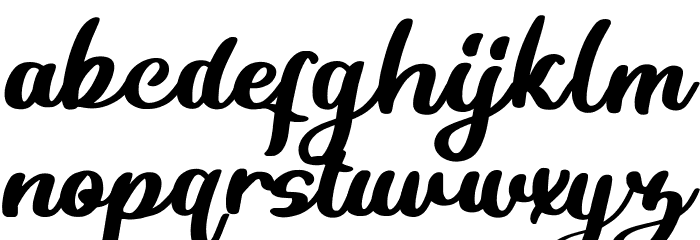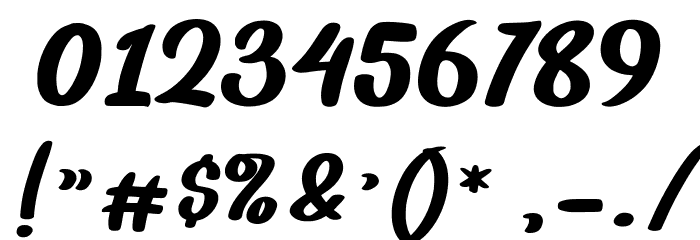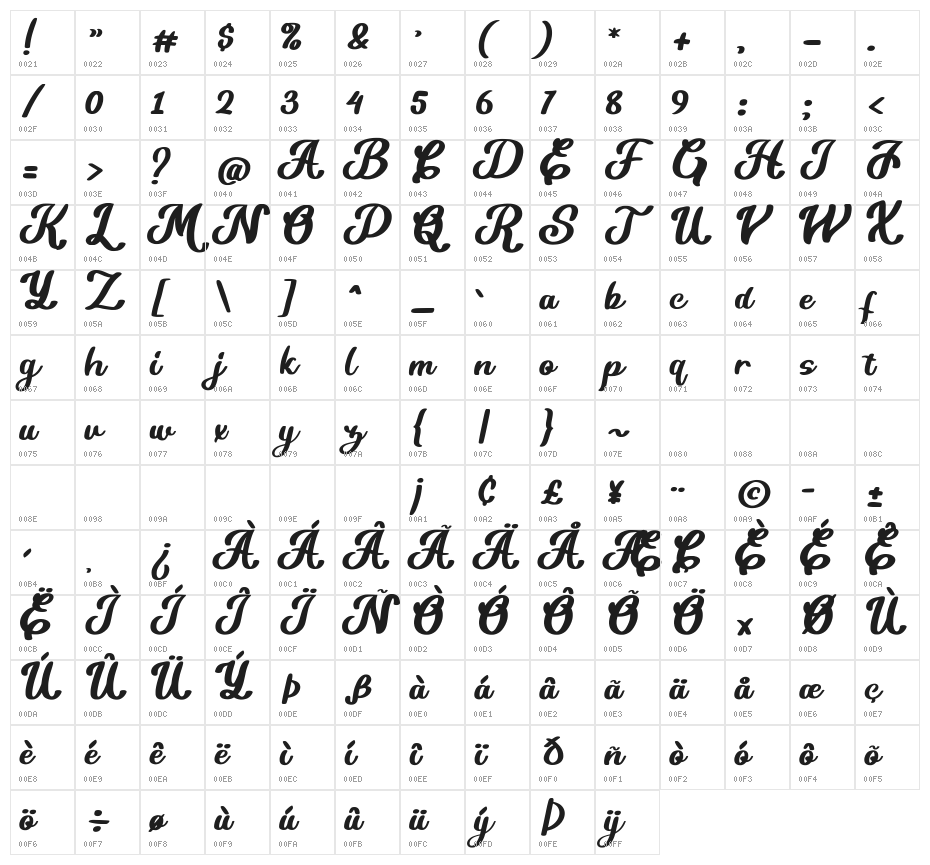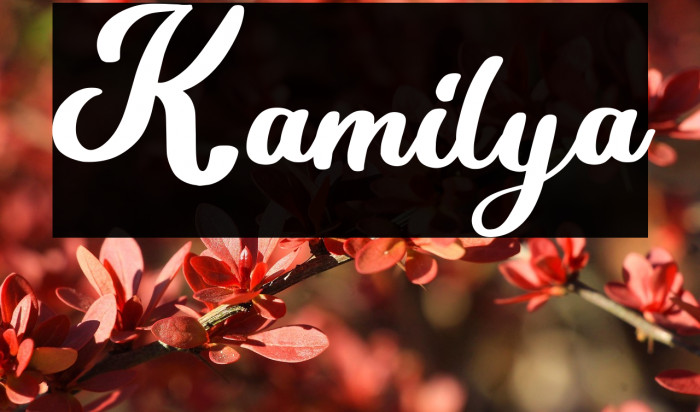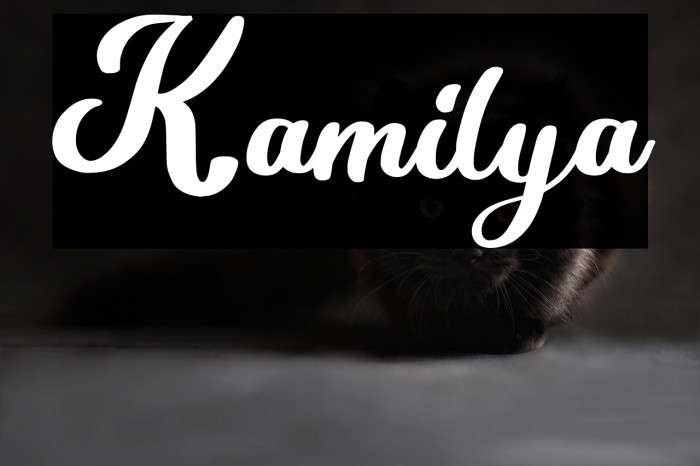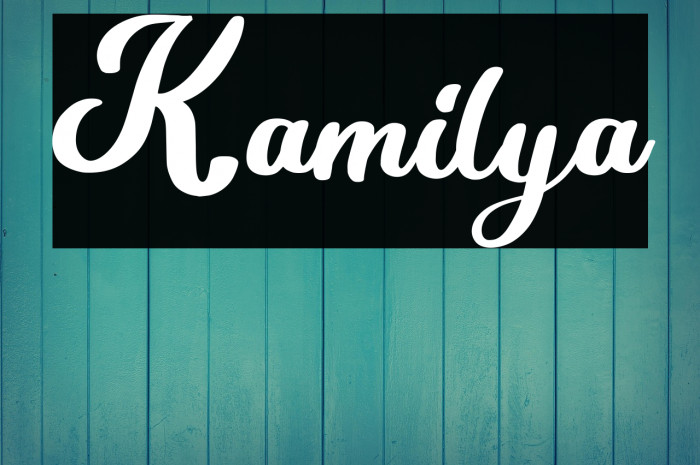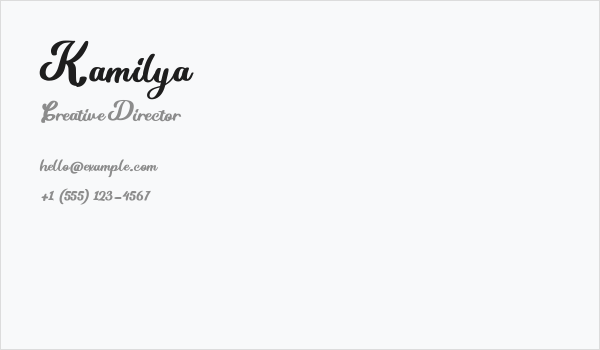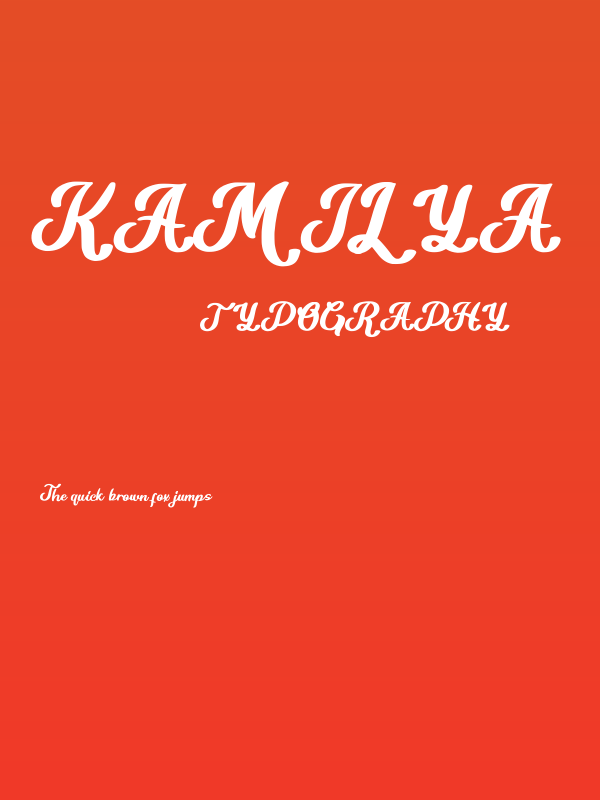
Kamilya Font
This font features a bold and flowing script style, characterized by its elegant curves and smooth connections between letters. The uppercase letters exhibit a classic calligraphic flair, while the lowercase letters maintain a consistent and harmonious flow. The numerals are designed with the same fluidity, ensuring readability while maintaining the overall aesthetic. Special characters are integrated seamlessly, enhancing the font's versatility. The thick strokes and rounded edges give it a robust appearance, making it suitable for a variety of design applications.
A bold, flowing script font with elegant curves and smooth connections.
- Proposed Projects: Ideal for wedding invitations, branding, logo design, and elegant packaging.
- Category: Script
- Overall Style: Classic
- Use Case: Logos, Invitations, Branding